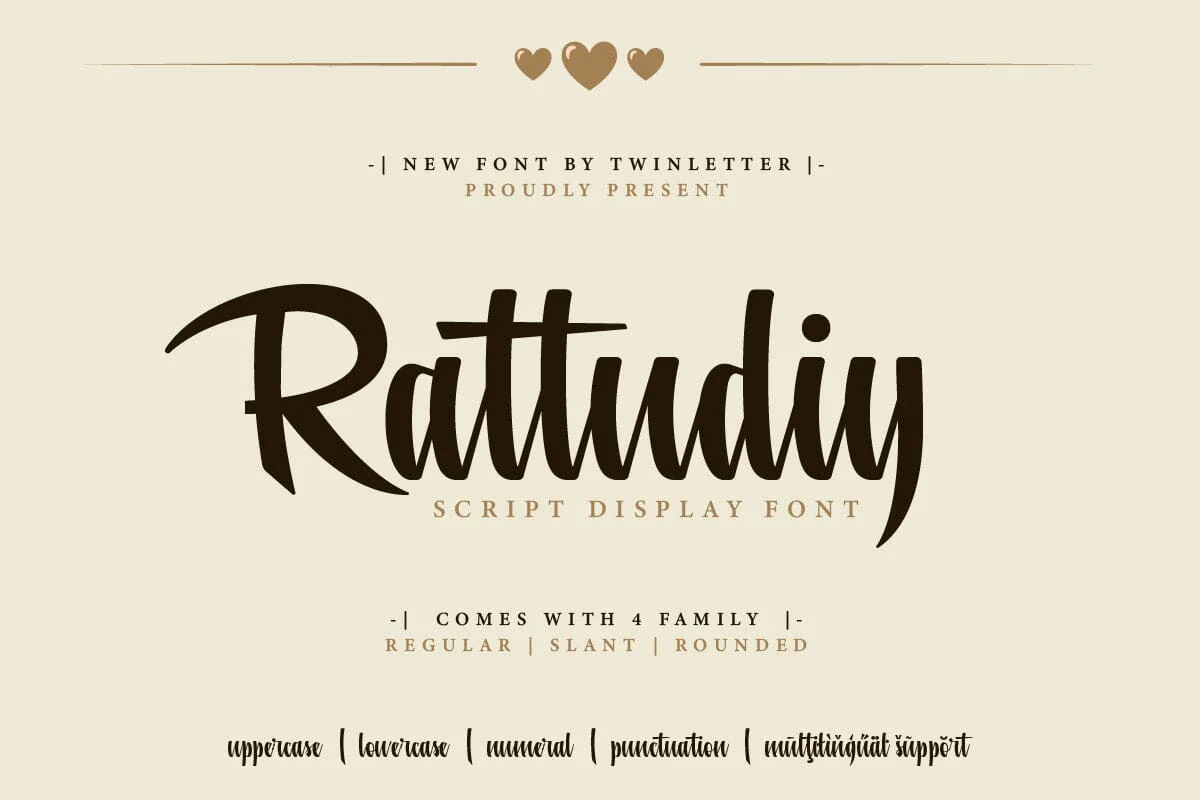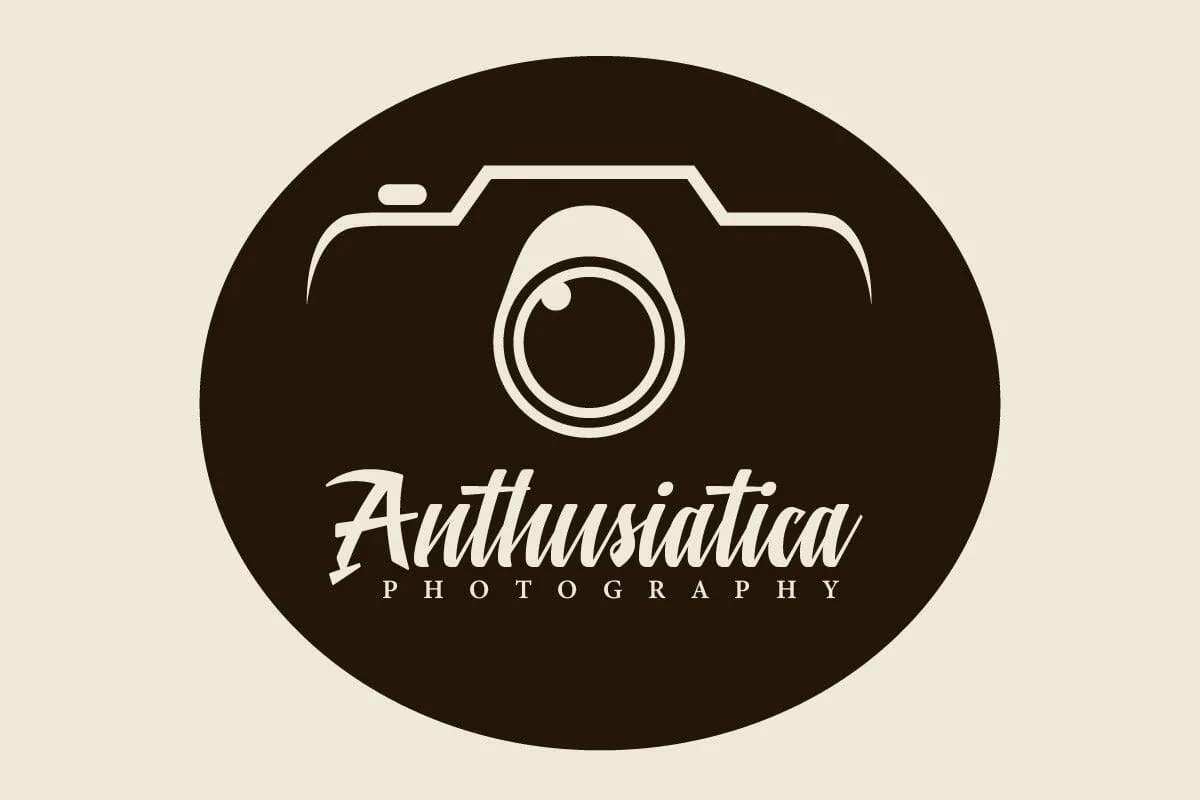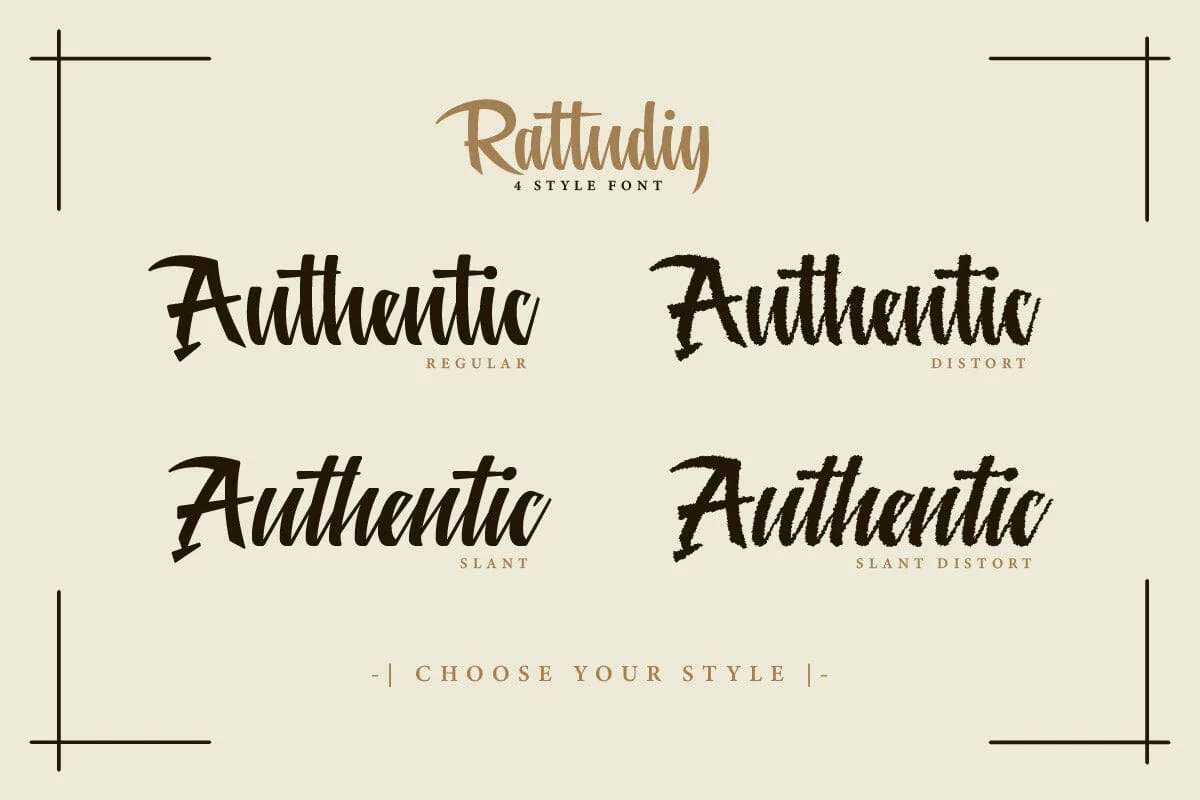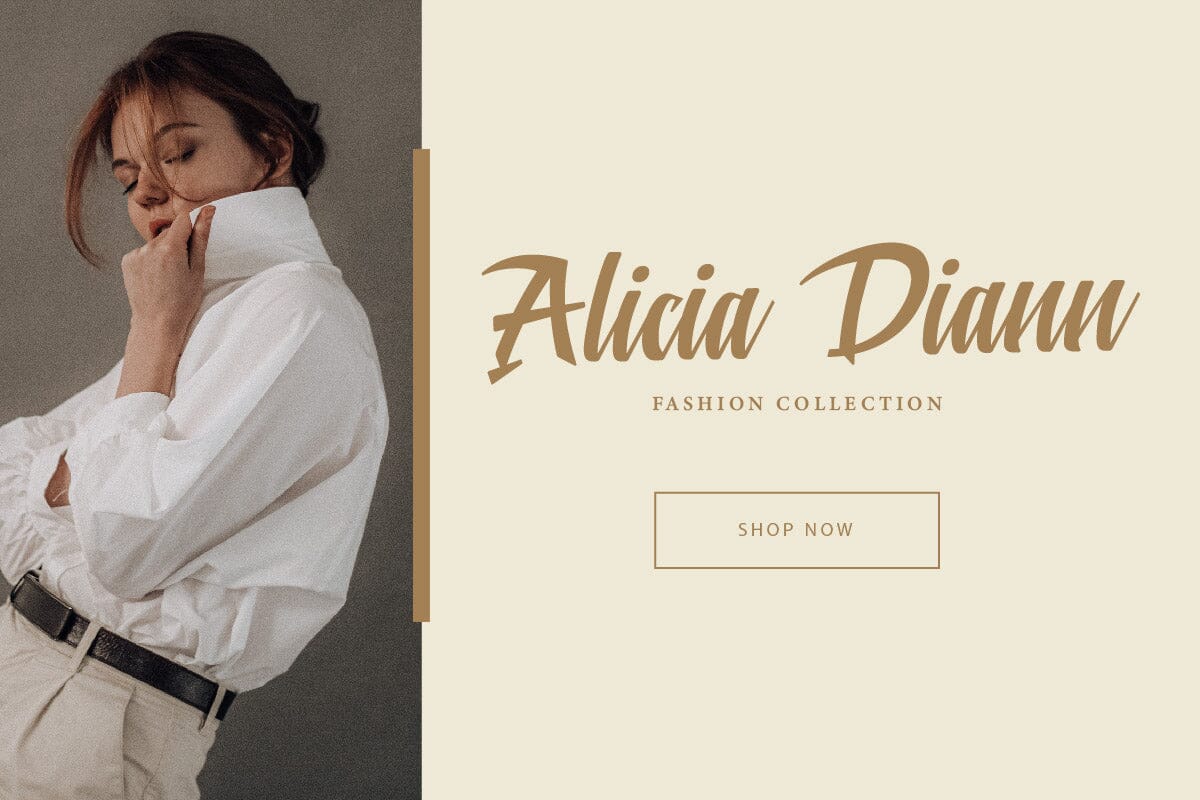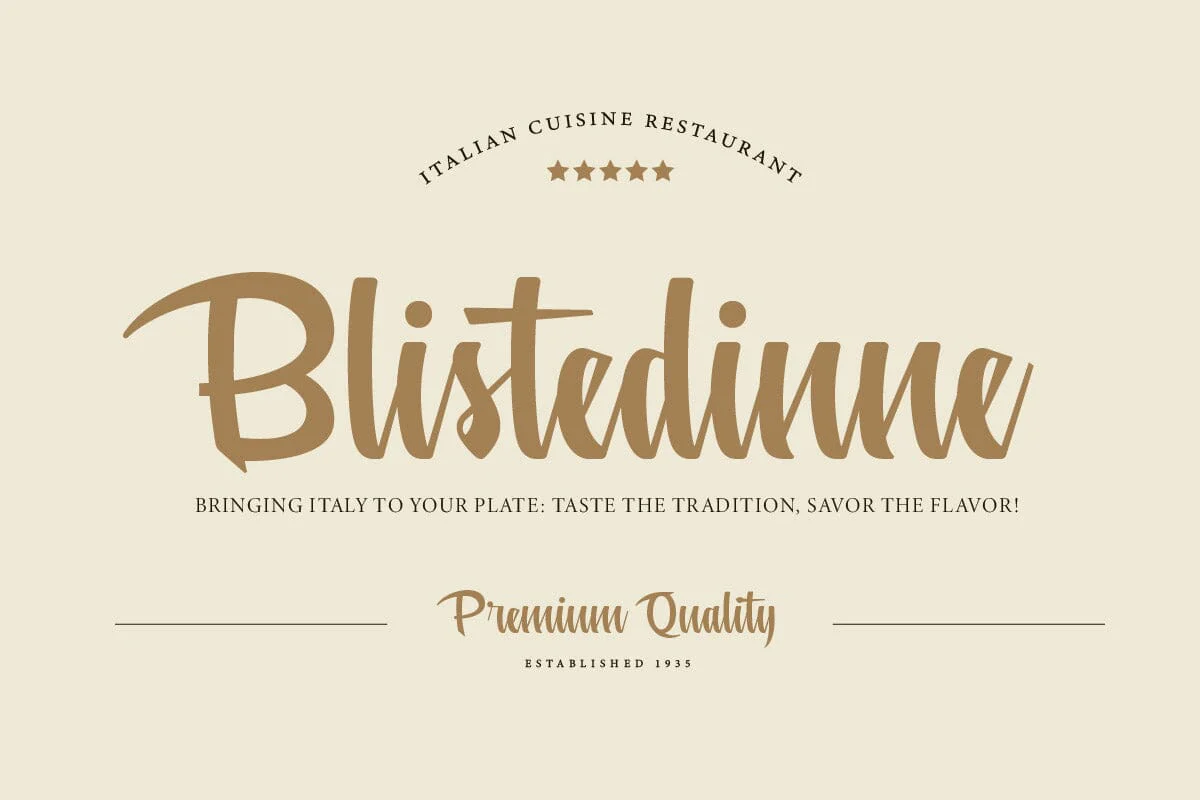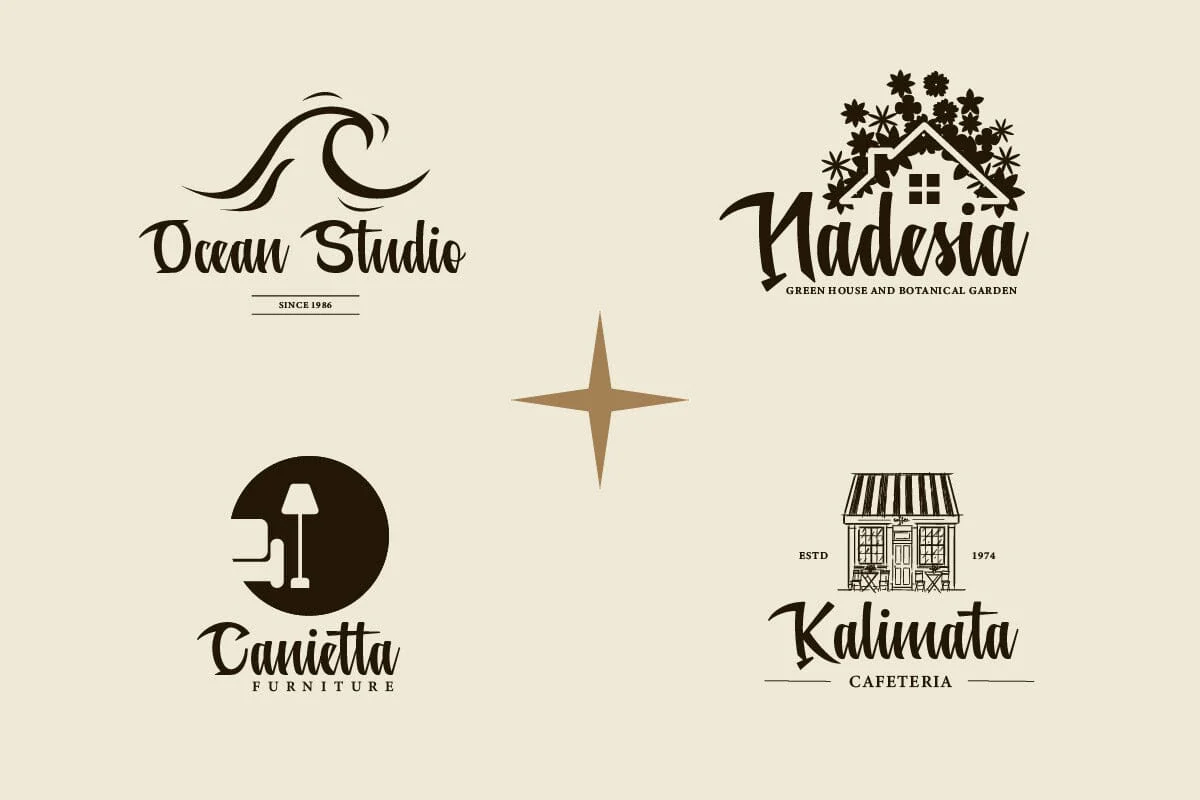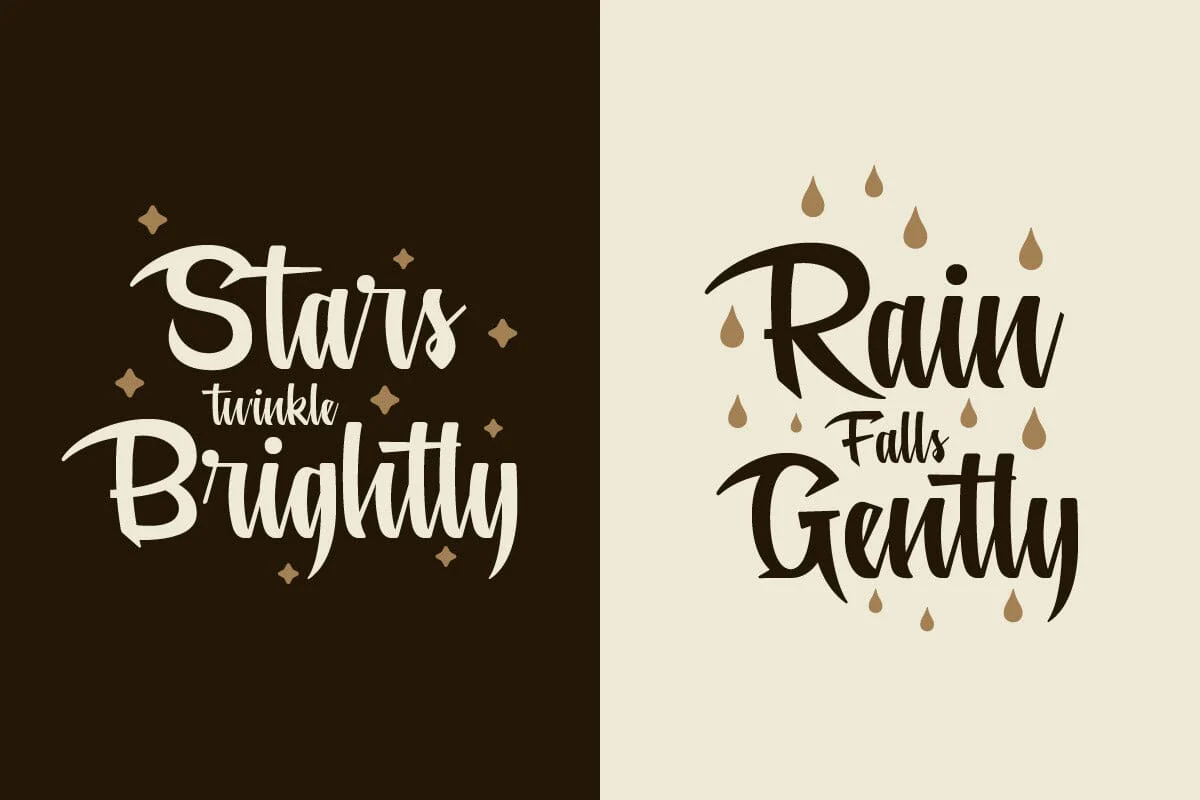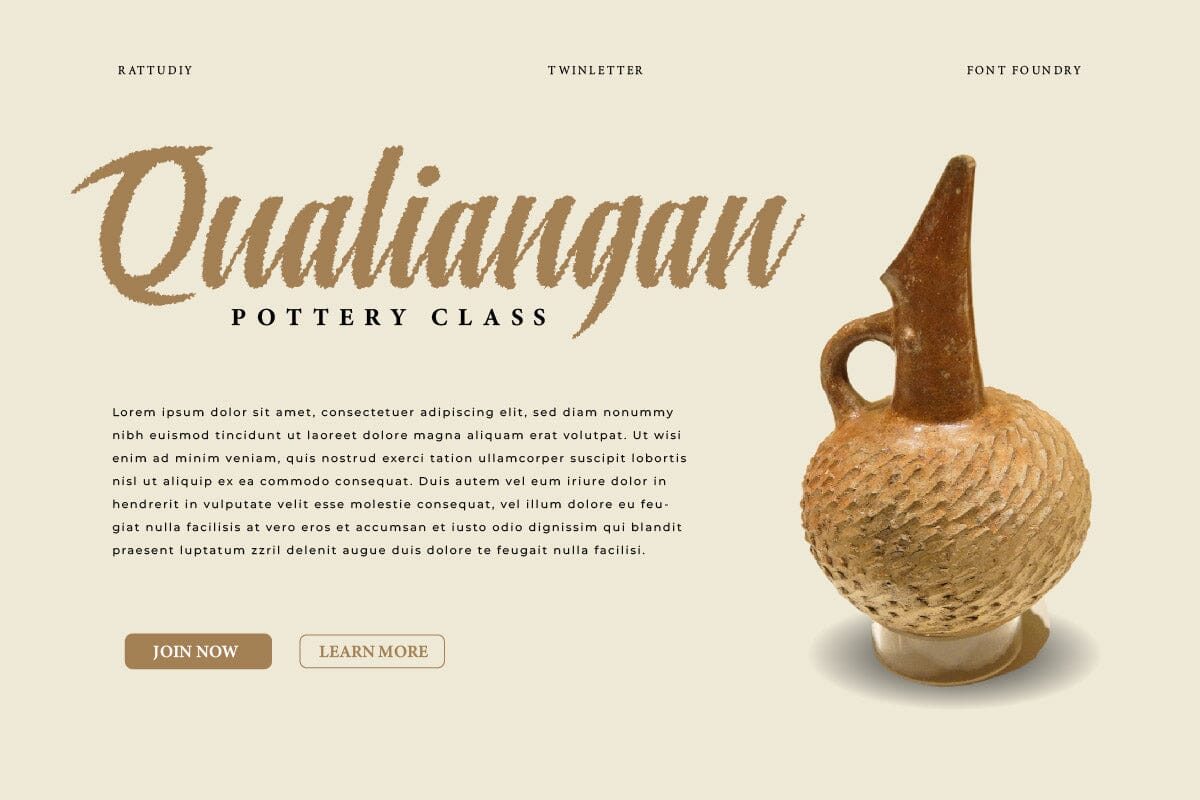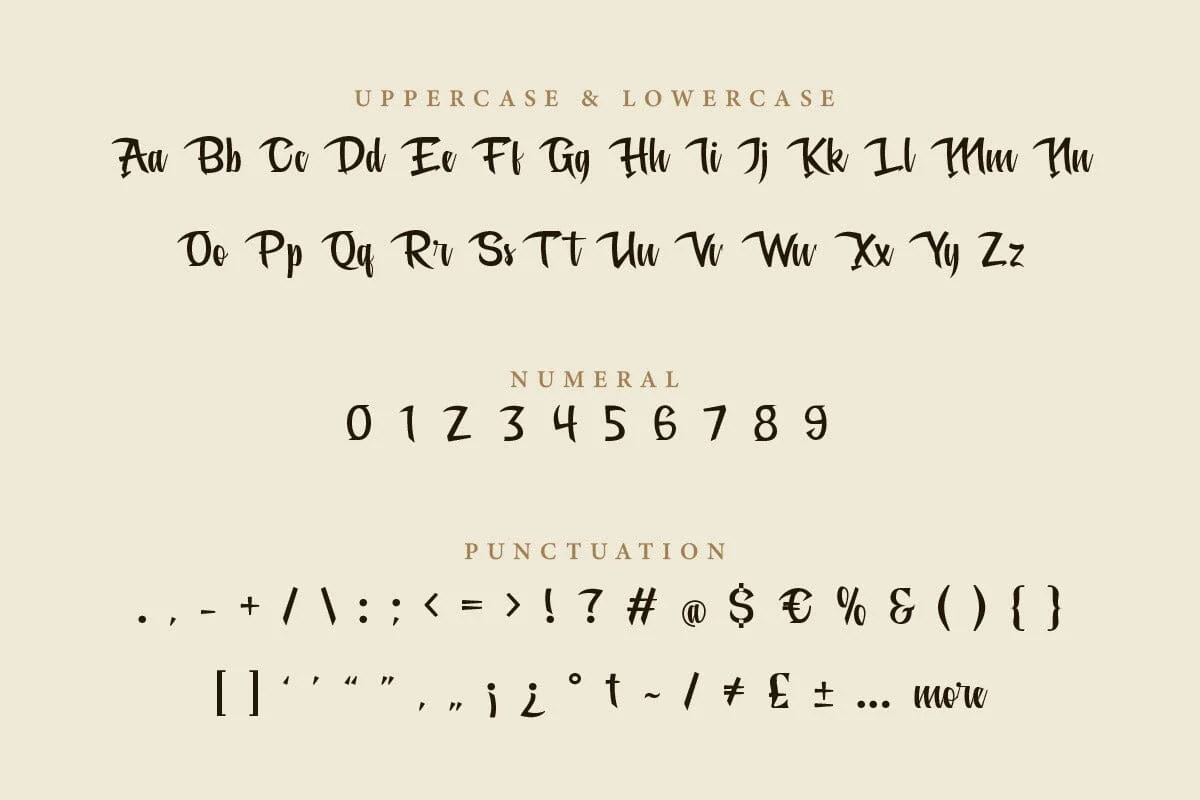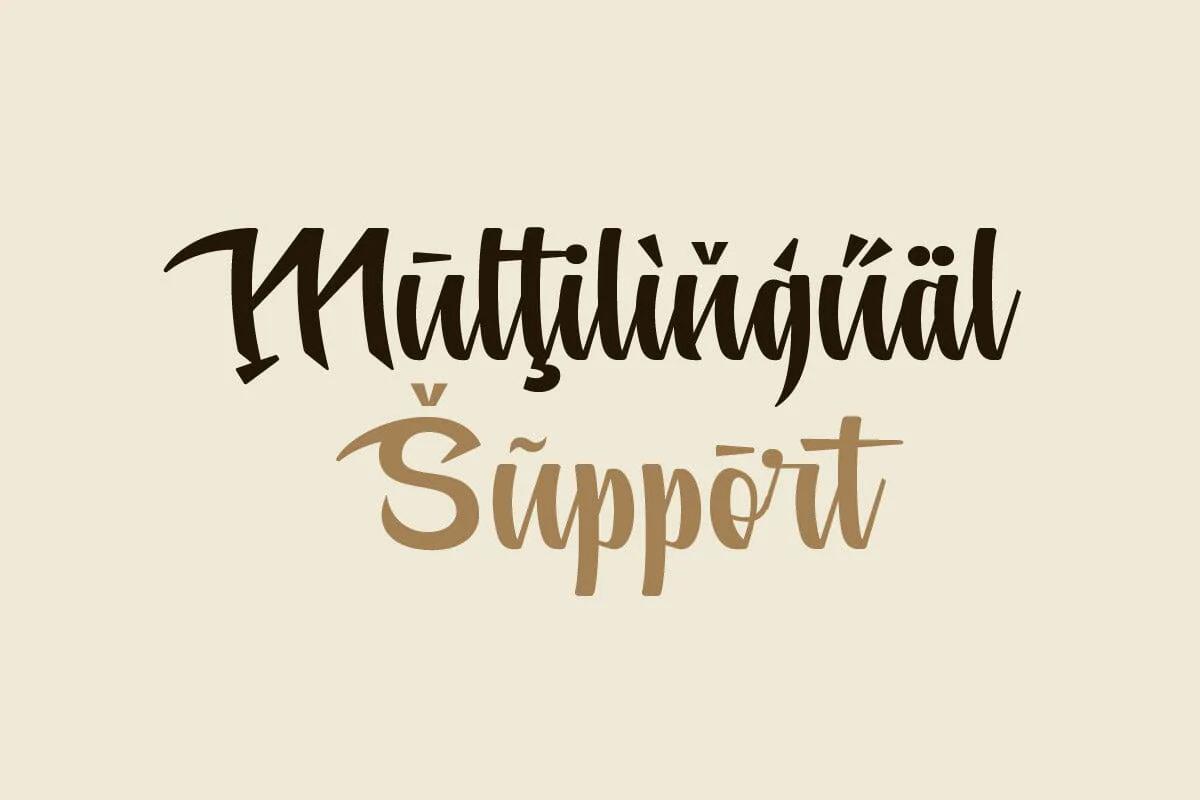
Rattudiy - Script Font
Rattudiy is a script font that brings a touch of elegance and sophistication to your designs. Its flowing characters mimic the beauty of human handwriting, making it perfect for invitations, logos, and any design where you want to add a personal touch. But Rattudiy is more than just a font, it’s a statement. With Rattudiy, your designs will speak volumes. It’s perfect for those designs where you need to convey a sense of elegance and sophistication, such as luxury brand logos or high-end invitations. When you use Rattudiy, you’re not just choosing a font, you’re choosing a lifestyle.